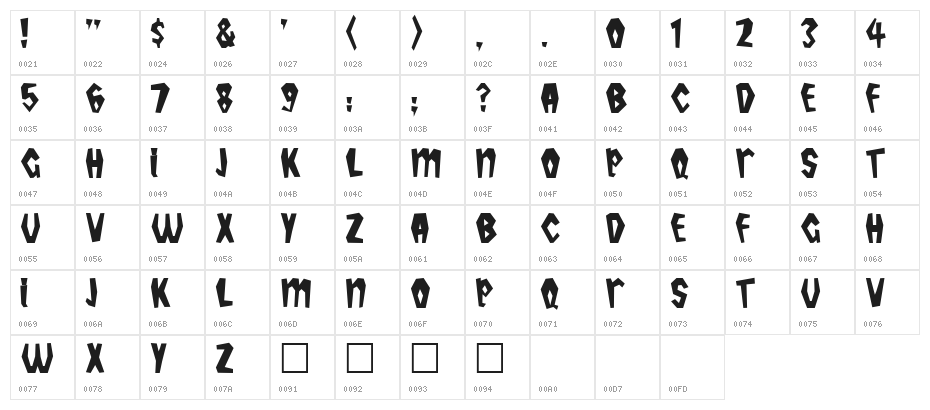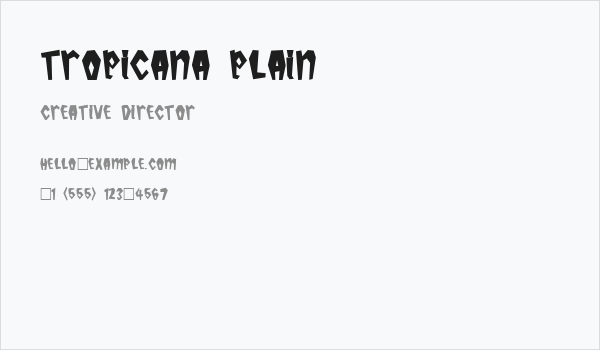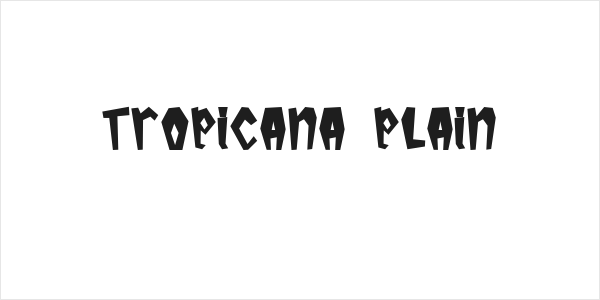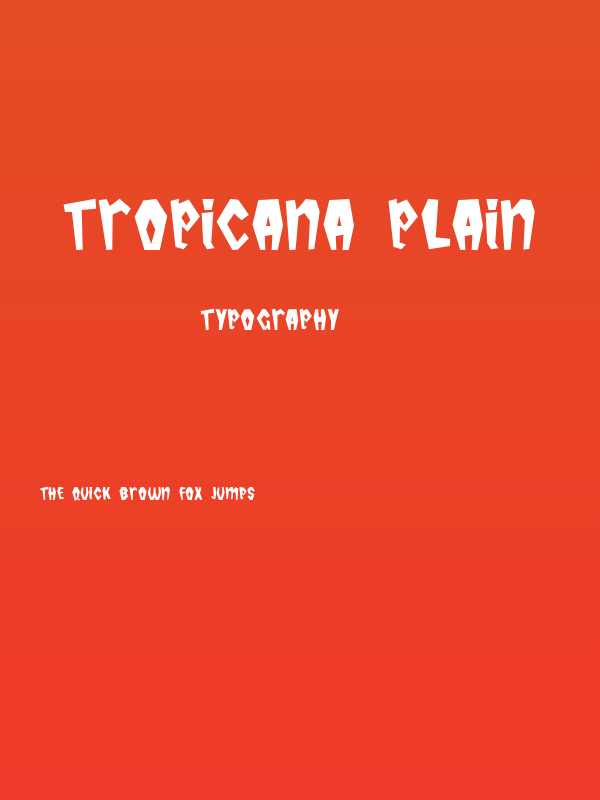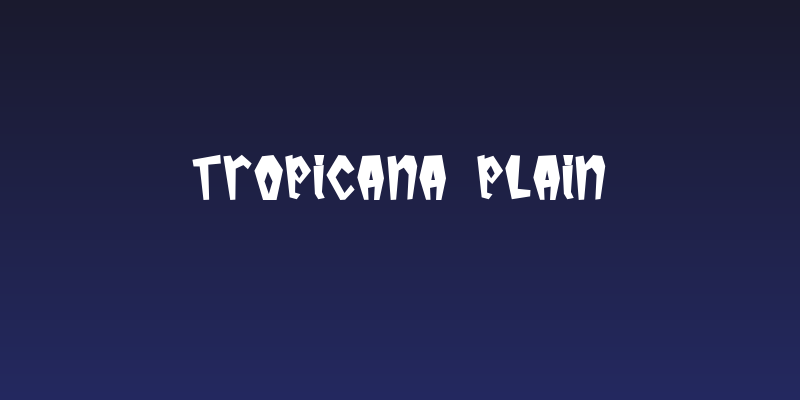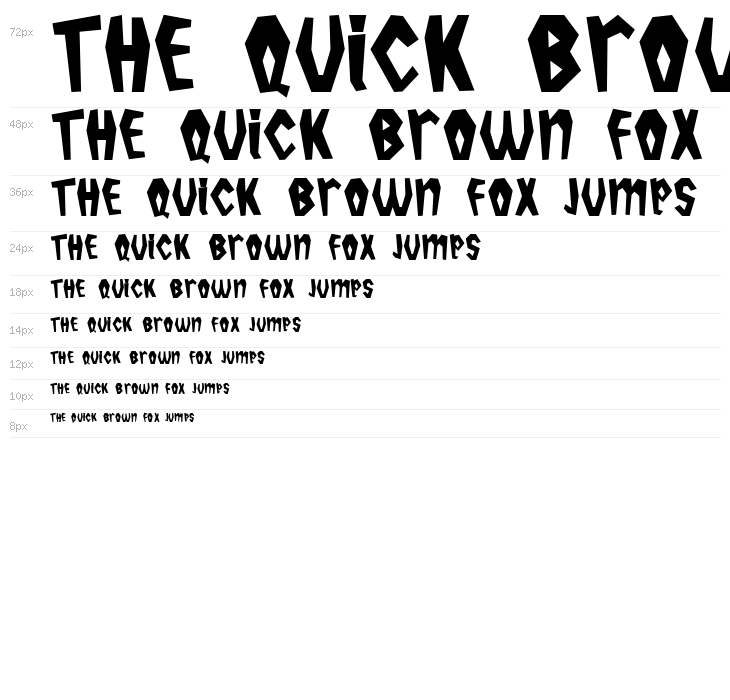
Tropicana Plain Font
Tropicana Plain Description
This font features a bold and playful design with a distinctly angular and geometric style. The characters are crafted with sharp edges and irregular shapes, giving it a dynamic and energetic appearance. The uppercase and lowercase letters maintain a consistent style, with a slightly condensed form that enhances its boldness. The numbers and special characters follow the same design principles, ensuring uniformity across all glyphs. This font's unique style makes it stand out, offering a fresh and modern twist on traditional letterforms.
| Proposed Projects | Ideal for use in posters, logos, branding, and any project requiring a bold and eye-catching typeface. |